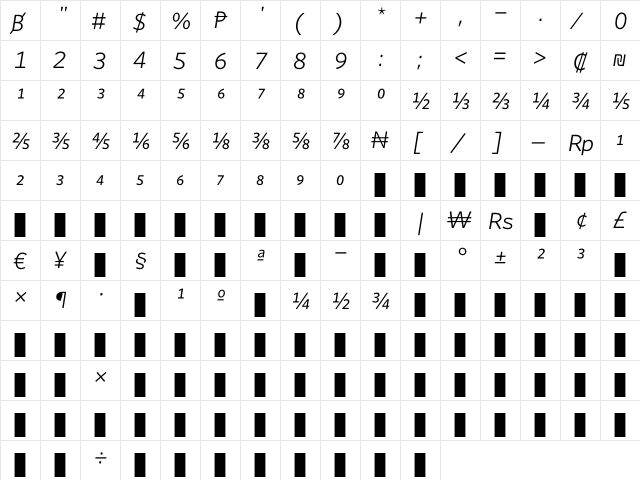
WhitneyNumeric BookItalic
Design Context for WhitneyNumeric Typeface
WhitneyNumeric offers clean, dependable letterforms without strong stylistic allegiance, making it a practical choice for designers who need flexibility. The dynamic lean of this cut emphasises speed and emphasis in any layout.
Pro Tip: Try WhitneyNumeric for annotation and caption copy alongside an upright companion — the contrast in angle creates a dynamic but ordered typographic system.